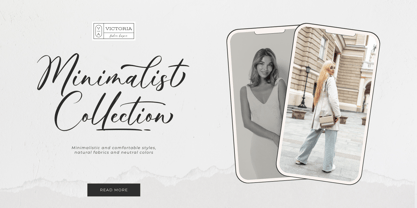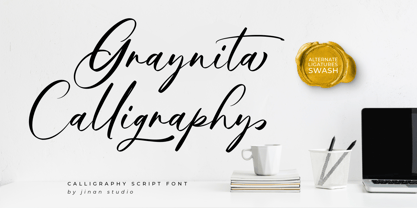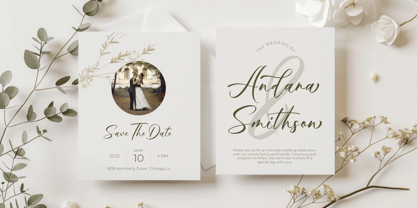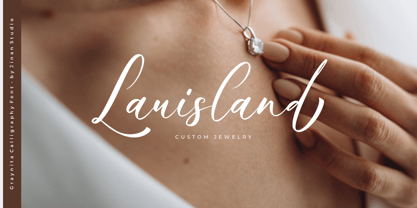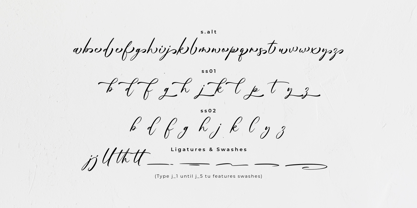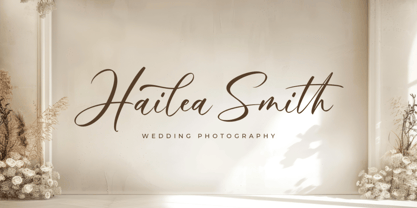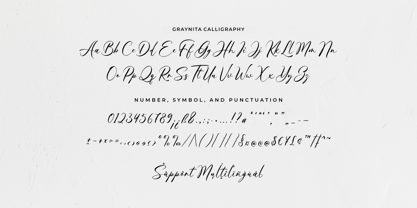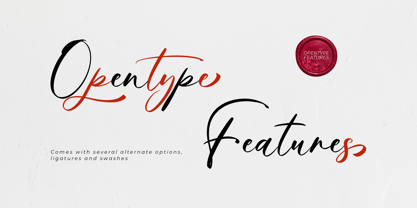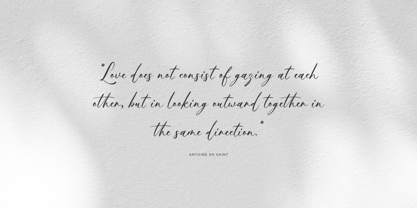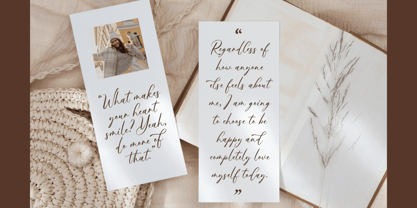
Graynita Calligraphy
The Graynita Calligraphy Font Family was designed by Andi Syahdang, Ainun Jinan and published by Jinan Studio. Graynita Calligraphy contains 1 styles. More about this family
Introducing Graynita Calligraphy, a stream of elegant contours artistically designed to exude a sense of sophistication. This captivating calligraphy script font is artfully crafted with exquisite flowing lines and meticulous strokes, amplifying your projects with an elevated touch of charm. Whether it's enhancing the allure of wedding invitations, enriching the warmth of greeting cards or adding a classy distinction to branding, Gempita Calligraphy seamlessly transforms your creations into exceptional pieces of art.
Features
• A set of uppercase and lowercase glyphs
• Number, symbol, and punctuation
• Multilingual Support
• Alternates, ligatures, and swashes
• PUA encoded
Type j_1 until j_5 to features swash, ligatures will automatically replace the standard letter pairs whenever available, when using any OpenType capable software.